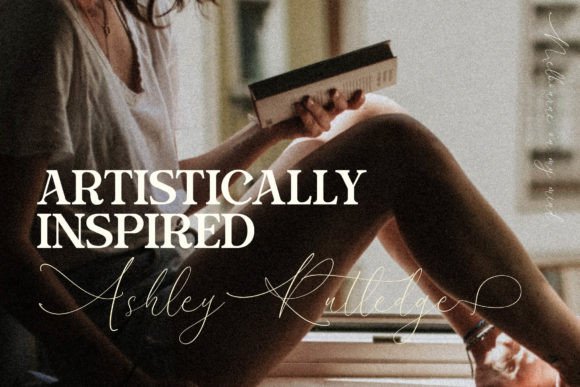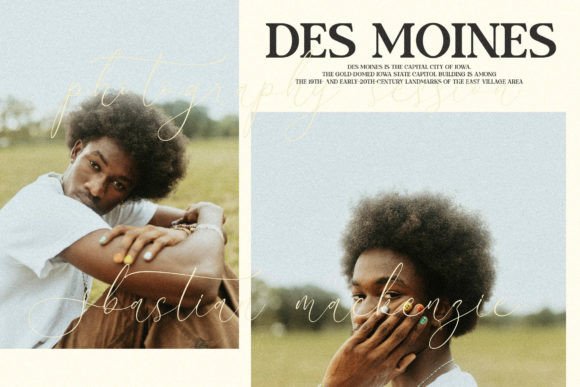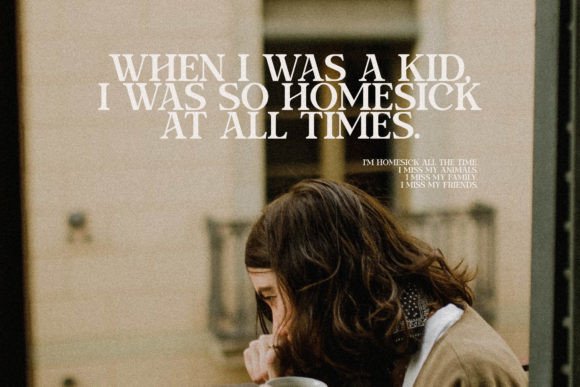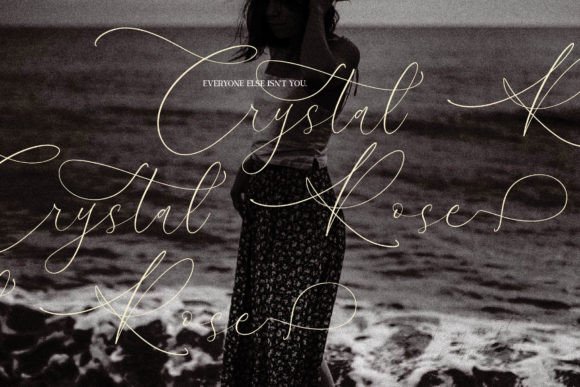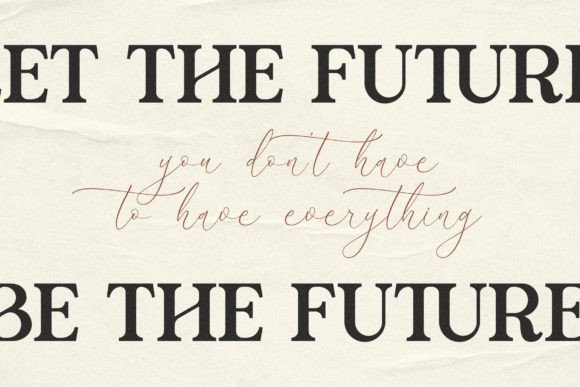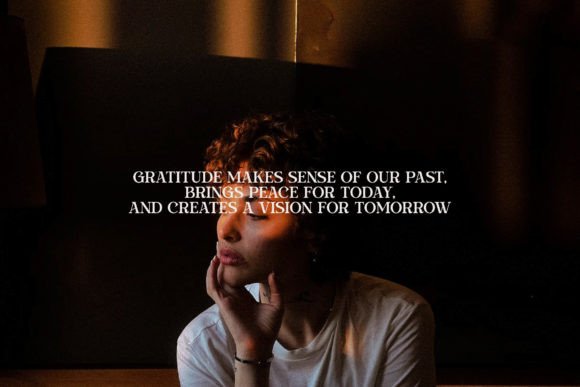
Clements Morgle Duo Font: Elevate Your Designs with Elegance and Sophistication
In the world of design, typography plays a crucial role in conveying the tone and aesthetic of a project. Whether you’re working on a branding campaign, crafting a beautiful wedding invitation, or designing a stylish website, the right font can make all the difference. This is where the Clements Morgle Duo Font comes into play – a stunning serif and script font duo that embodies elegance, sophistication, and refinement.
What Makes Clements Morgle Duo Font Stand Out?
The Clements Morgle Duo Font is not just any ordinary font; it’s a meticulously crafted duo that combines the classic charm of a serif font with the fluid beauty of a script font. This pairing offers designers the versatility to add depth and contrast to their designs, making it suitable for a wide range of projects that demand a touch of class and sophistication.
Key Features of Clements Morgle Duo Font
- Stylish, Elegant, and Classy: The Clements Morgle Duo Font exudes a refined look that can instantly elevate the visual appeal of any design project.
- PUA Encoded: Being PUA (Private Use Area) encoded, this font allows easy access to all glyphs and ligatures, providing designers with the flexibility to experiment with various typographic elements without any hassle.
- Versatility: From luxury branding and high-end product packaging to elegant stationery and sophisticated website designs, this font duo can adapt to various design needs.
- Easy to Use: The PUA encoding ensures that accessing the extended character set, including ligatures and stylistic alternates, is straightforward, making it accessible even for those with basic font management skills.
Applications of Clements Morgle Duo Font
The Clements Morgle Duo Font’s versatility is one of its most compelling features. Here are some of the many applications where this font duo can make a significant impact:
- Branding and Logo Design: Create a lasting impression with a sophisticated brand identity that stands out from the competition.
- Wedding and Event Stationery: Add a touch of elegance to your wedding invitations, menus, and event programs.
- Web Design: Enhance the user experience with a refined and classy typography that reflects the sophistication of your website’s content.
- Packaging Design: Elevate your product packaging with a stylish and luxurious look that appeals to discerning customers.
- Advertising and Marketing Materials: Stand out in advertising campaigns with typography that commands attention and exudes professionalism.
Tips for Maximizing the Potential of Clements Morgle Duo Font
To get the most out of the Clements Morgle Duo Font, consider the following tips:
- Mix and Match: Combine the serif and script fonts to create visual hierarchy and add depth to your designs.
- Experiment with Ligatures: Take advantage of the PUA encoding to explore the font’s ligatures and create unique typographic elements.
- Adjust Font Sizes: Play with different font sizes to emphasize certain parts of your text and create a more dynamic layout.
- Pair with Images: The elegant nature of the Clements Morgle Duo Font makes it an excellent choice to pair with high-quality images for a cohesive look.
The Clements Morgle Duo Font is a powerful tool for designers looking to infuse their projects with elegance, sophistication, and a refined aesthetic. Its versatility, combined with the ease of use provided by PUA encoding, makes it an excellent addition to any designer’s toolkit. Whether you’re working on a luxury brand campaign, a beautiful wedding invitation, or a stylish website, this font duo is sure to elevate your designs to new heights.